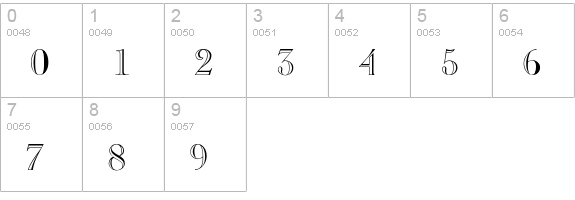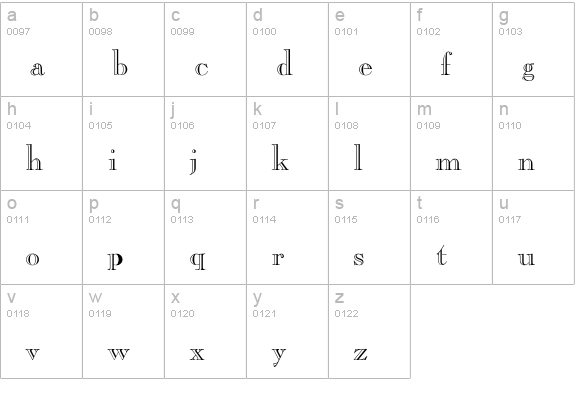
Carlson Open Face Font Details
Carlson Open Face is a unique and eye-catching font that exudes elegance and sophistication. With its classic yet modern design, this typeface is perfect for adding a touch of style to any project. The clean lines and open characters of Carlson Open Face make it a versatile choice for a wide range of design applications. What sets Carlson Open Face apart is its free-spirited and open nature, allowing for creativity to flow freely. Whether used for headlines, logos, or branding materials, this font will surely make a statement and leave a lasting impression on viewers. Best of all, Carlson Open Face is freely available to download at FontsMarket.com, making it easily accessible for designers and creatives looking to elevate their projects with a touch of sophistication. Don't miss out on this stunning font that combines timeless elegance with modern flair.